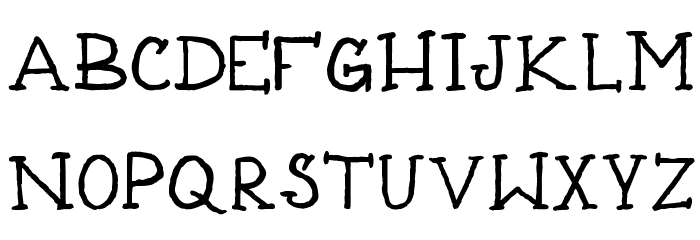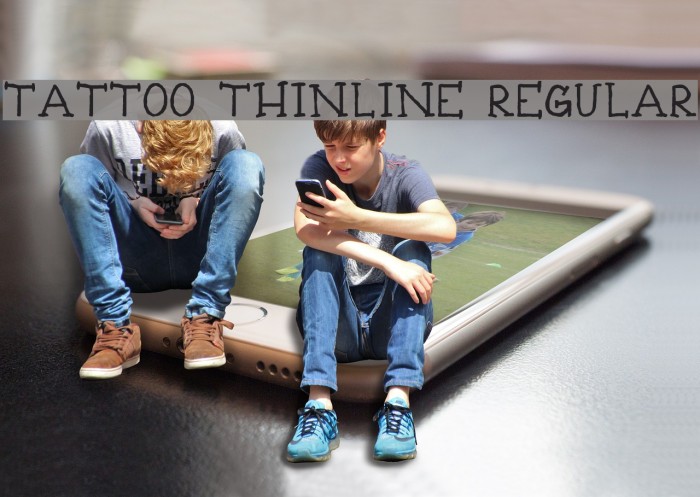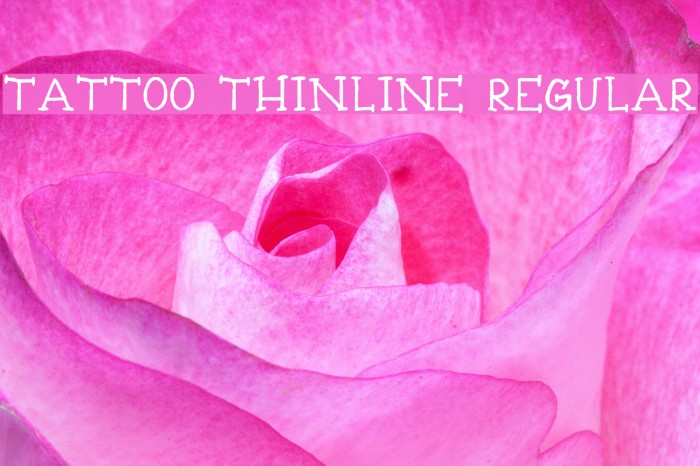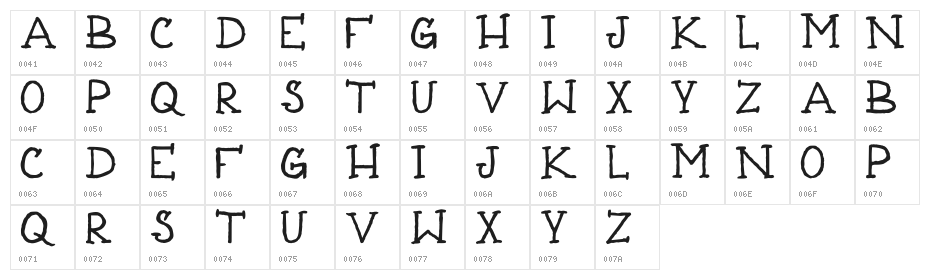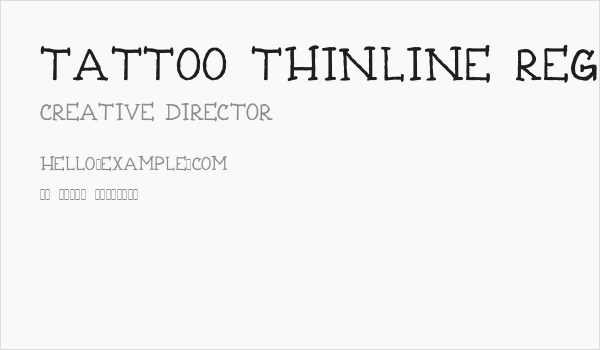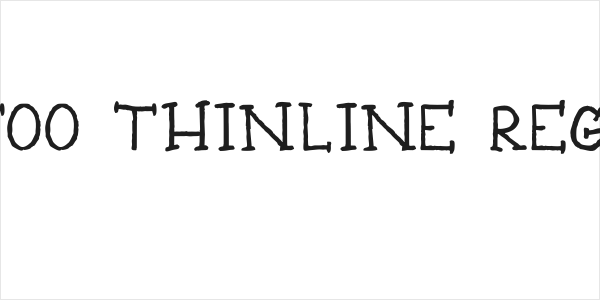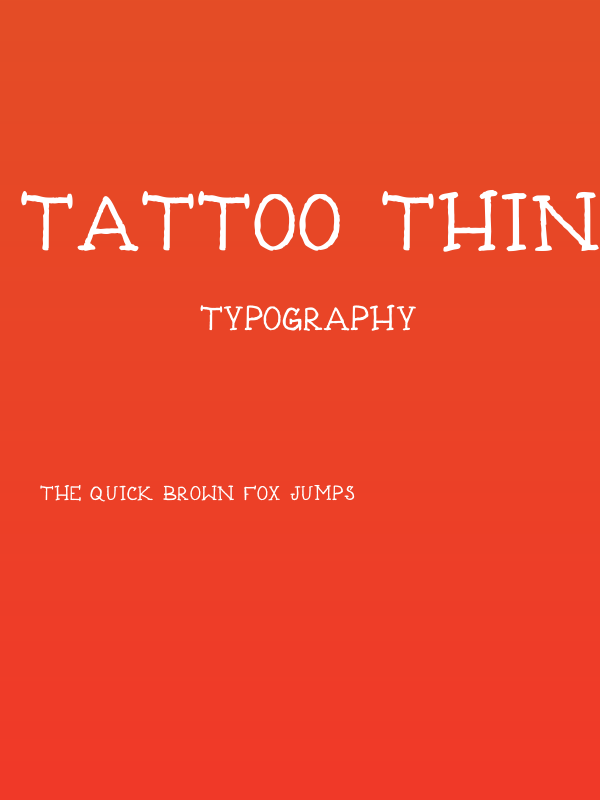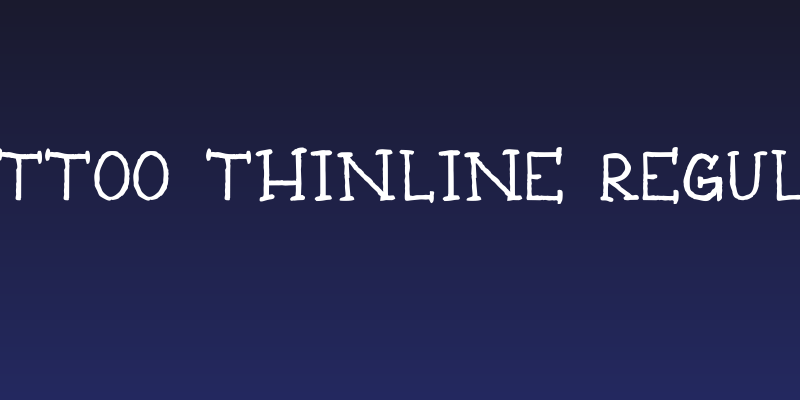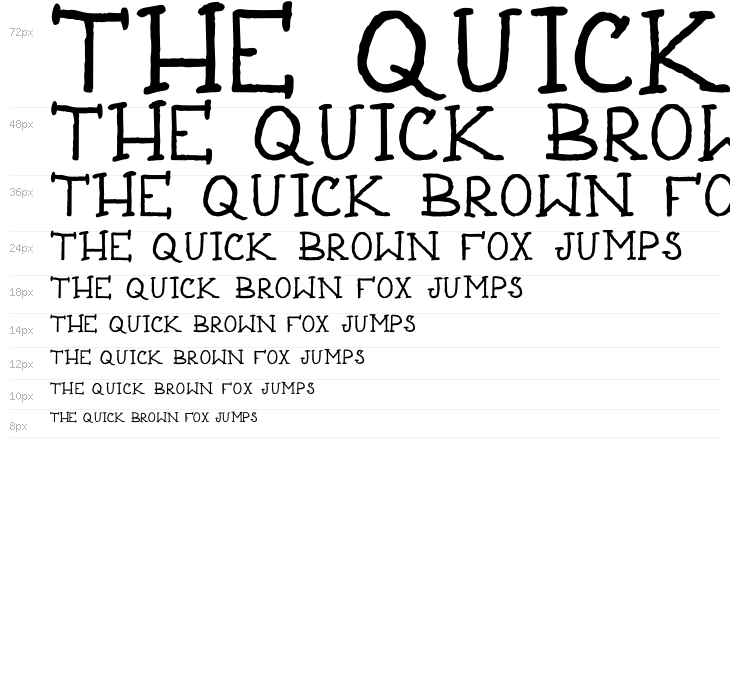
Tattoo Thinline Regular Font
This font features a unique, hand-drawn aesthetic reminiscent of traditional tattoo art. The characters are crafted with a thin line weight, giving them a delicate yet edgy appearance. Each letter is slightly irregular, adding to the handcrafted feel and making it stand out in any design. The uppercase and lowercase letters maintain a consistent style, with subtle variations that enhance the overall organic look. The numerals and special characters are designed to complement the alphabet, ensuring a cohesive appearance across all text elements. This font is perfect for projects that require a touch of individuality and artistic flair.
A thin, hand-drawn font with a tattoo-inspired, artistic style.
- Proposed Projects: Ideal for tattoo designs, artistic posters, album covers, and creative branding.
- Weight: Light
- Overall Style: Artistic, Handcrafted
- Use Case: Logos, Headlines, Artistic projects